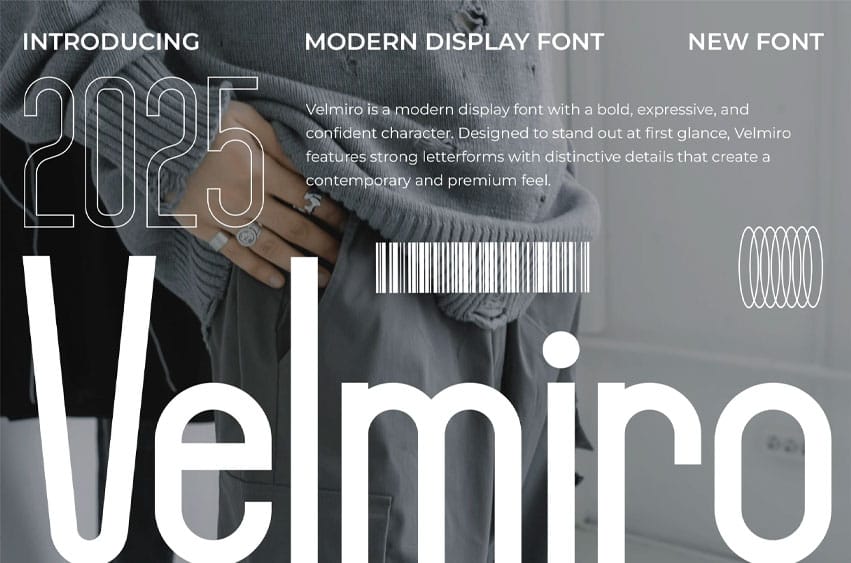
Velmiro Font is a modern display font designed to deliver bold clarity and refined edge to your creative work. With its clean lines, confident strokes, and modern structure, Velmiro offers a sleek visual identity that instantly captures attention while maintaining a professional, contemporary feel.
Velmiro includes uppercase and lowercase letters, numerals, punctuation, and multilingual support, ensuring versatility for global design needs. Whether you’re building a modern brand identity or crafting impactful visual campaigns, Velmiro brings precision, style, and confidence to every composition.